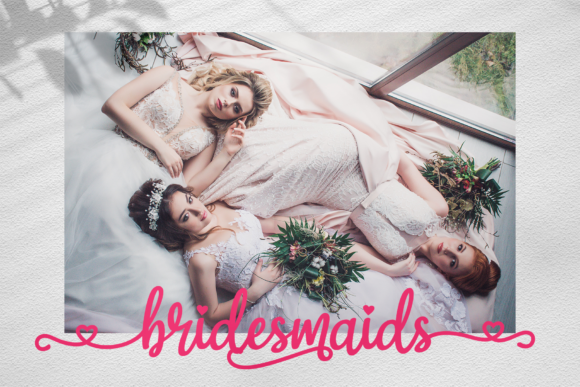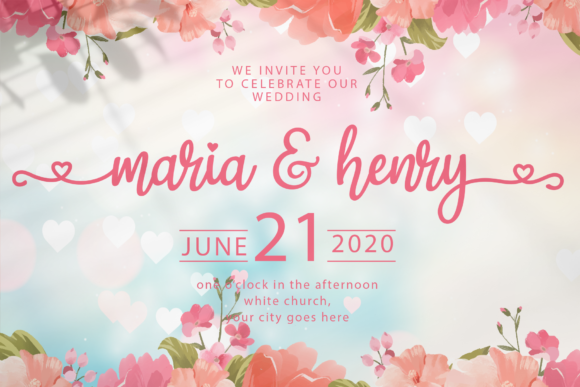
Magic Love Font
db-ku.com - Script & Handwritten -- Magic Love simplifies elegance into one truly outstanding handwritten font. It will elevate a wide range of design projects to the highest level, be it branding, headings, wedding designs, invitations, signatures, logos, labels, and much more!